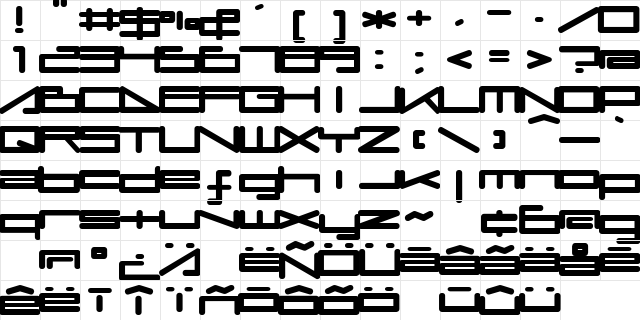
umopMedium Regular
Design Context for umopMedium Typeface
umopMedium is a composed and adaptable typeface that performs quietly and consistently across a wide range of design contexts.